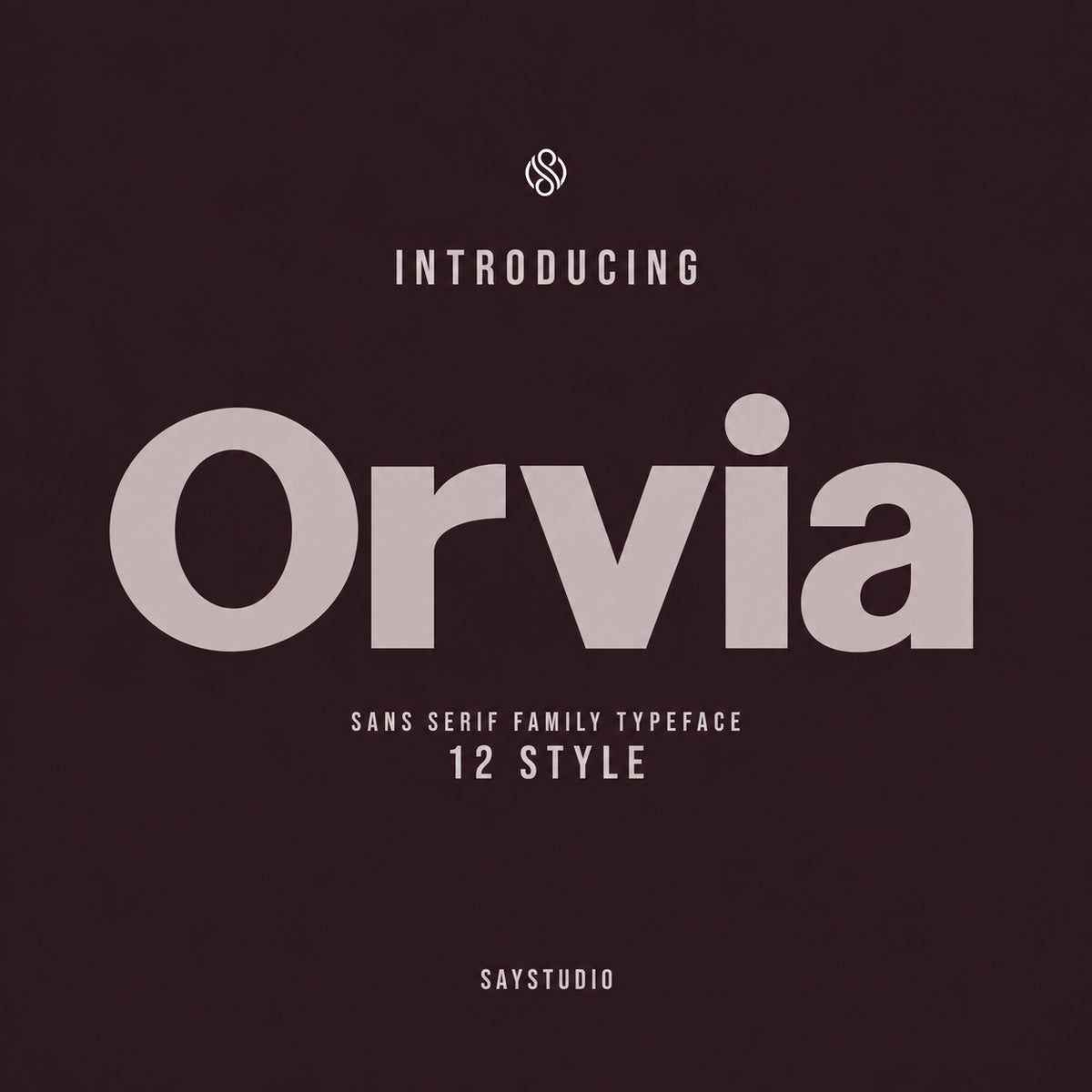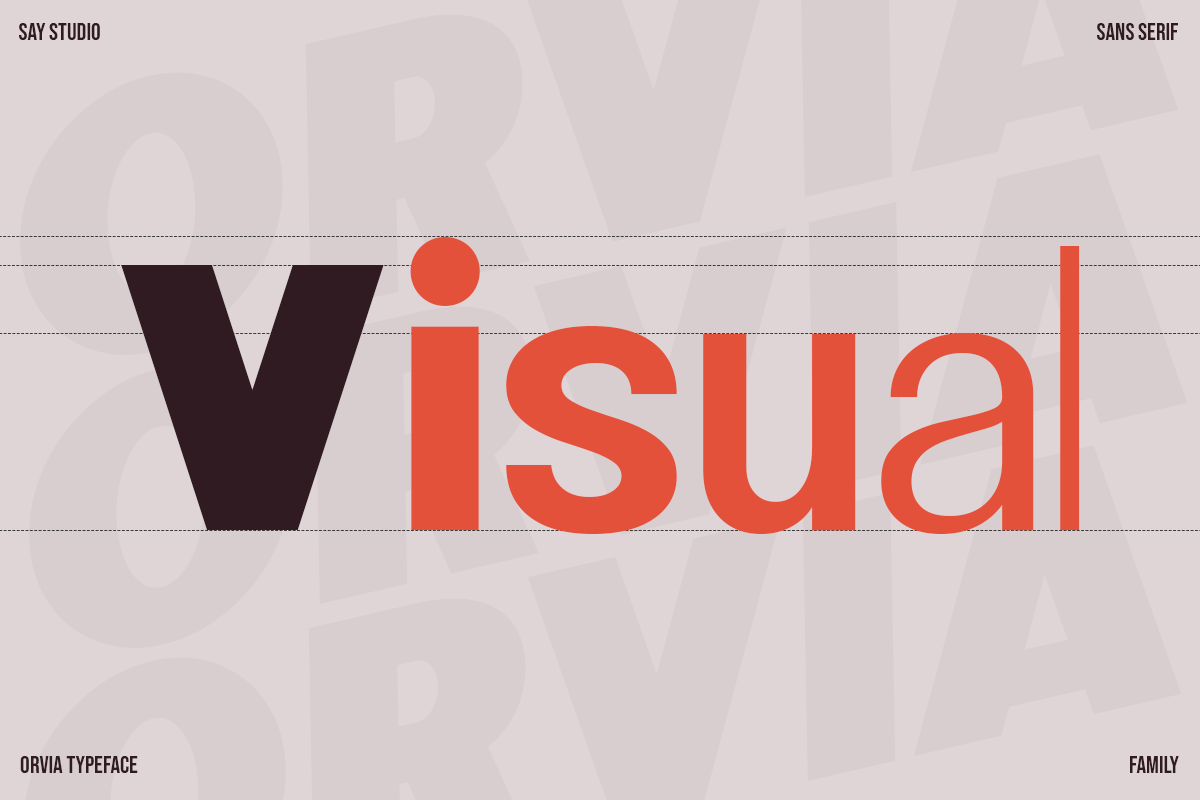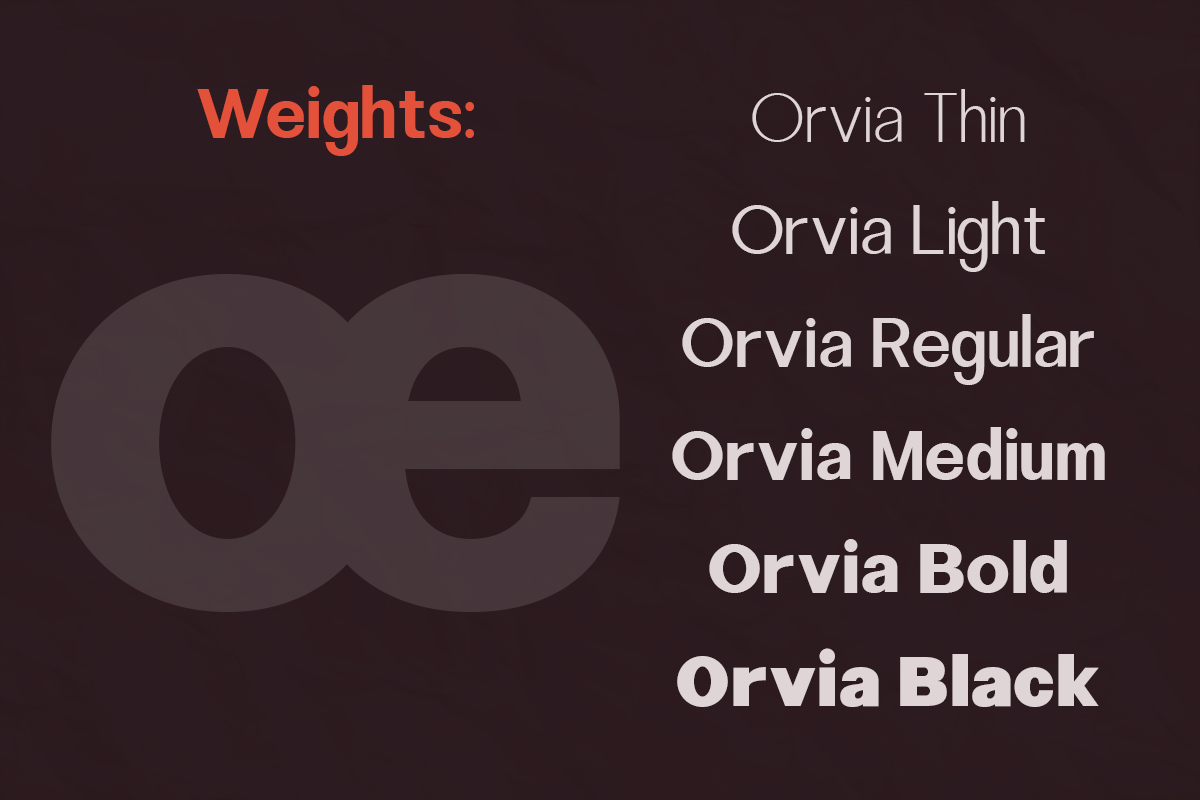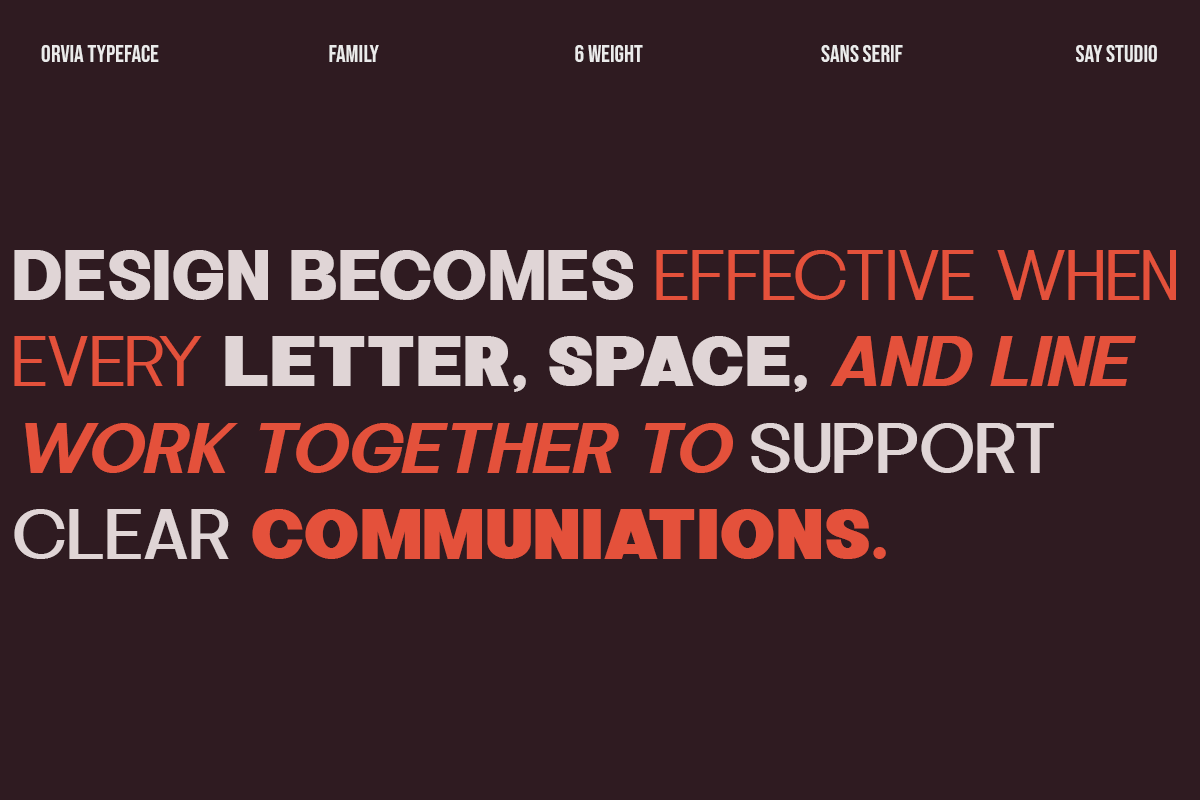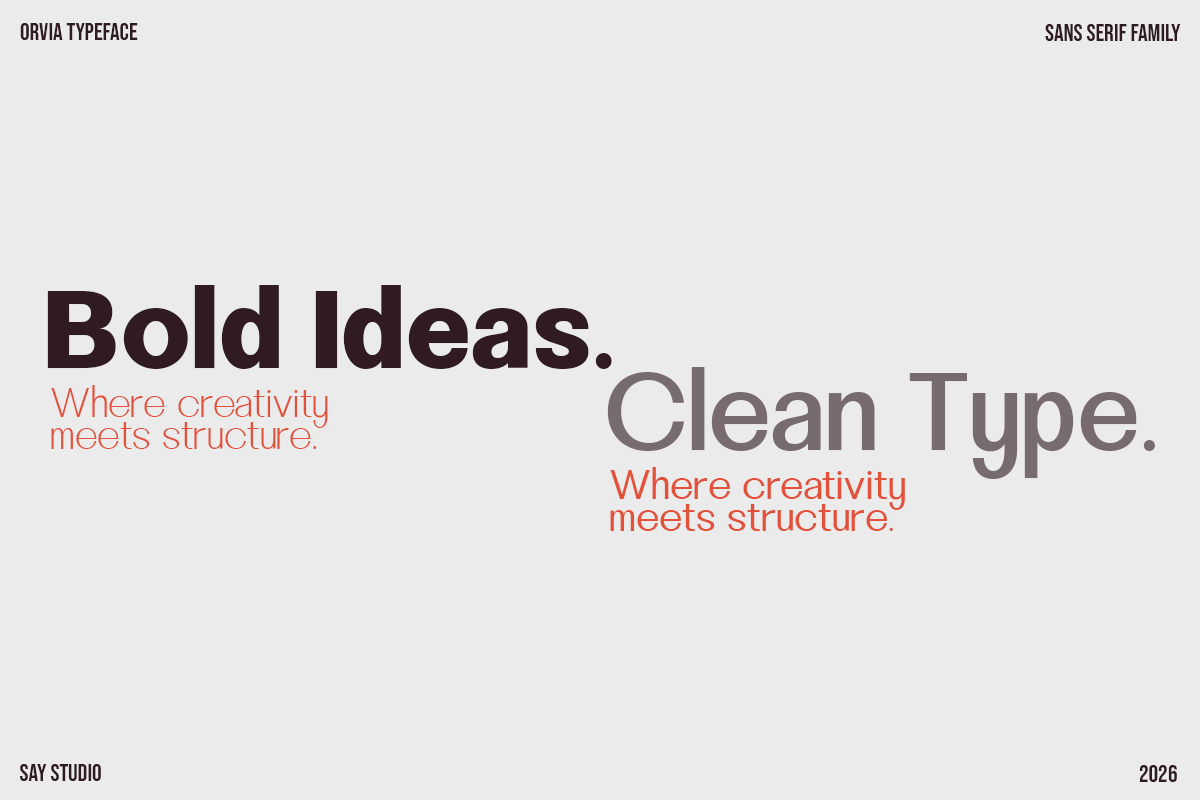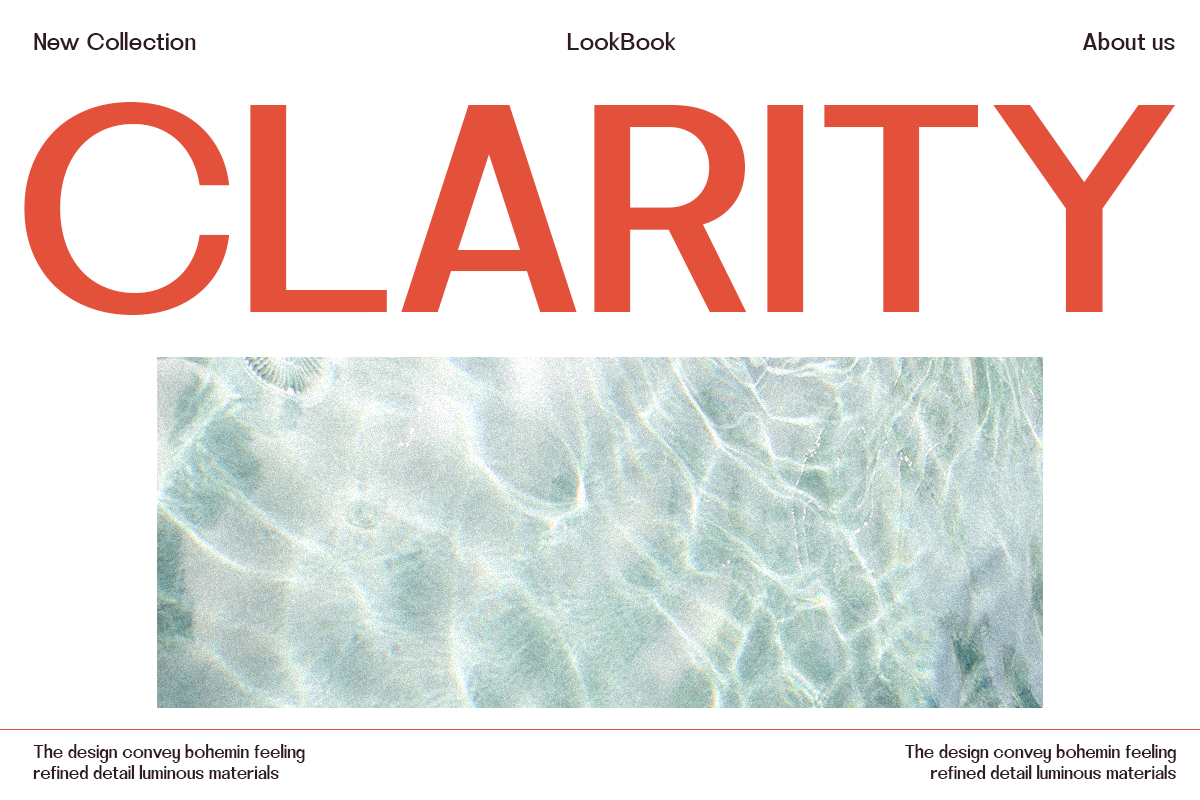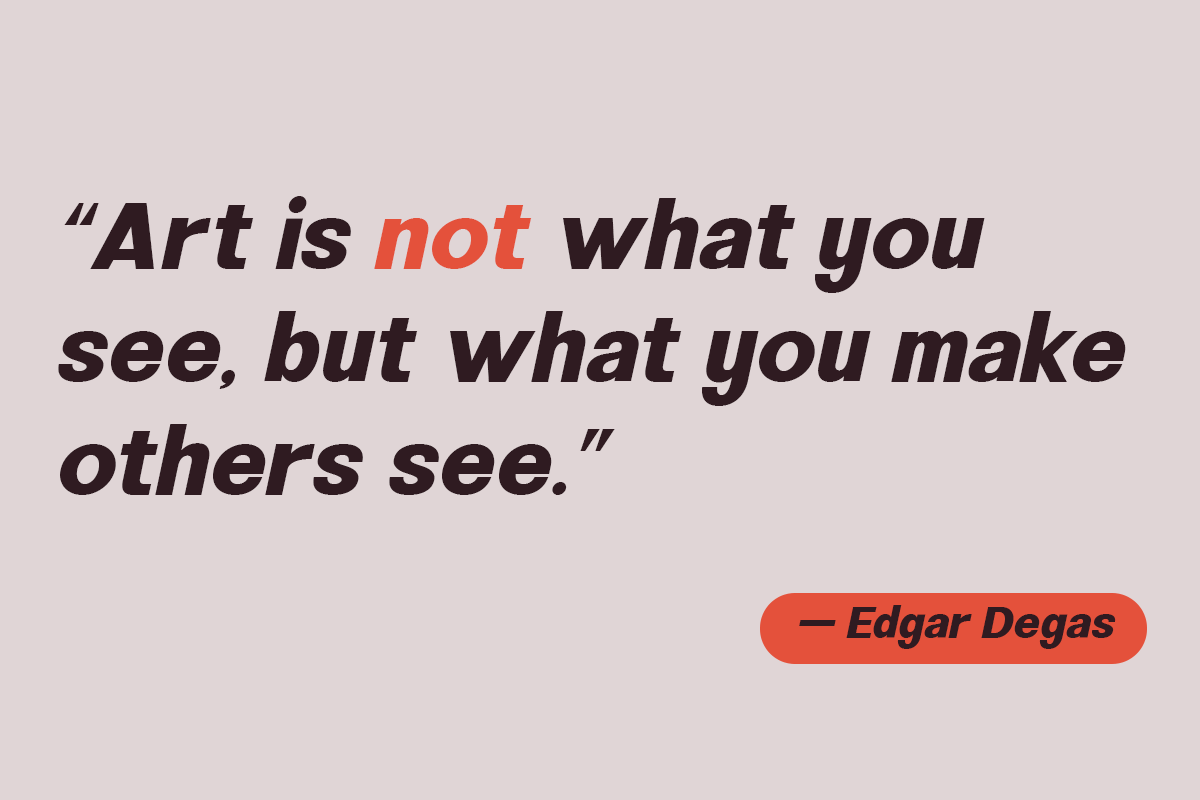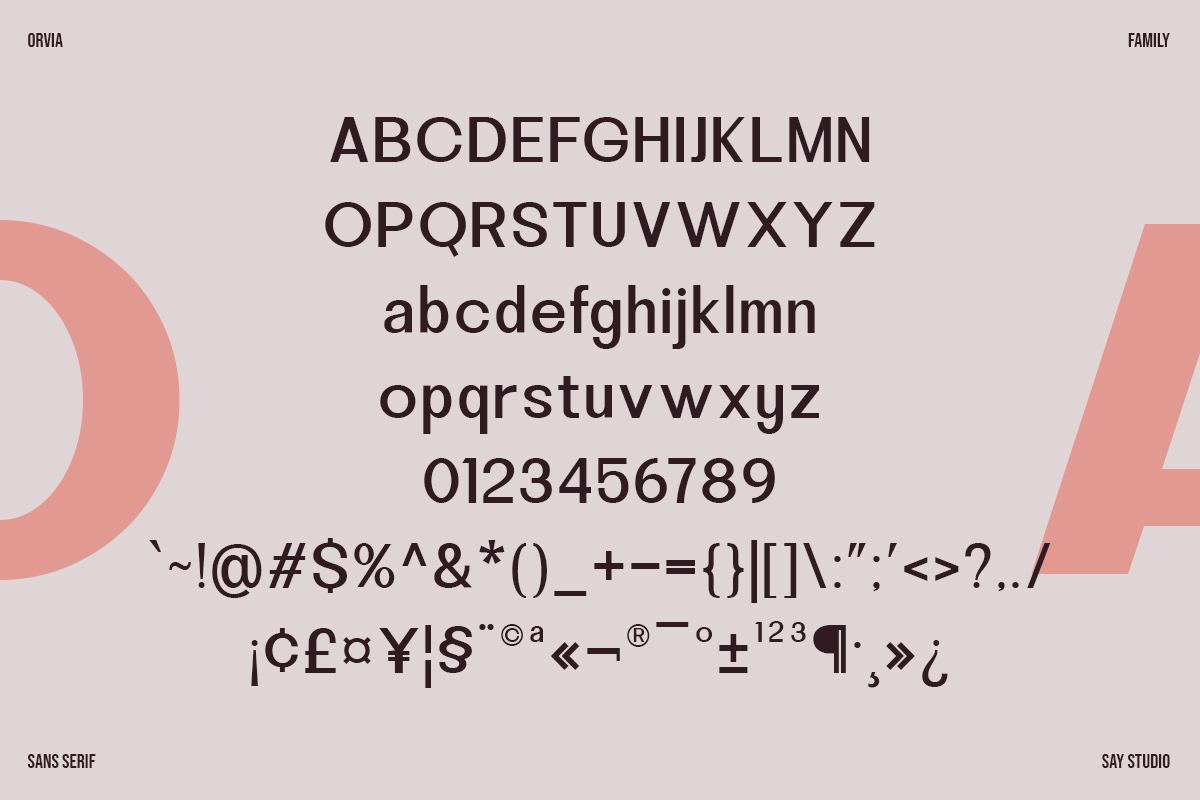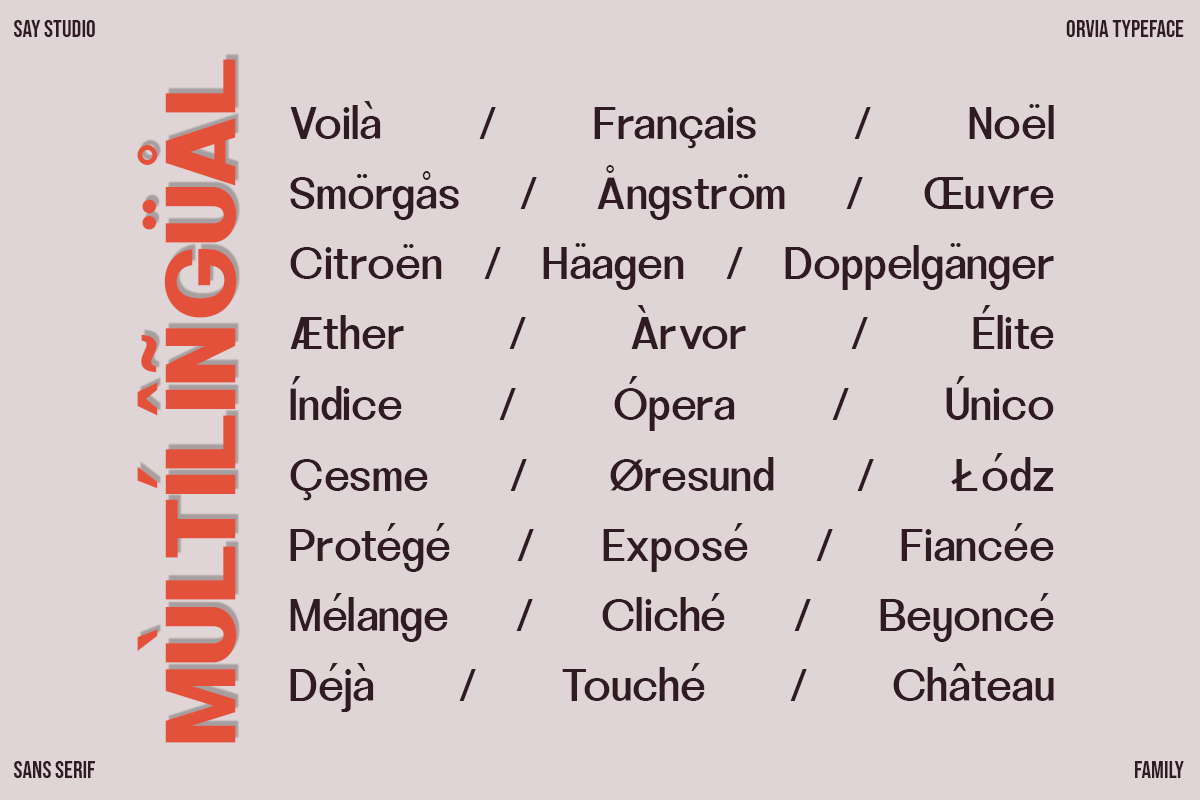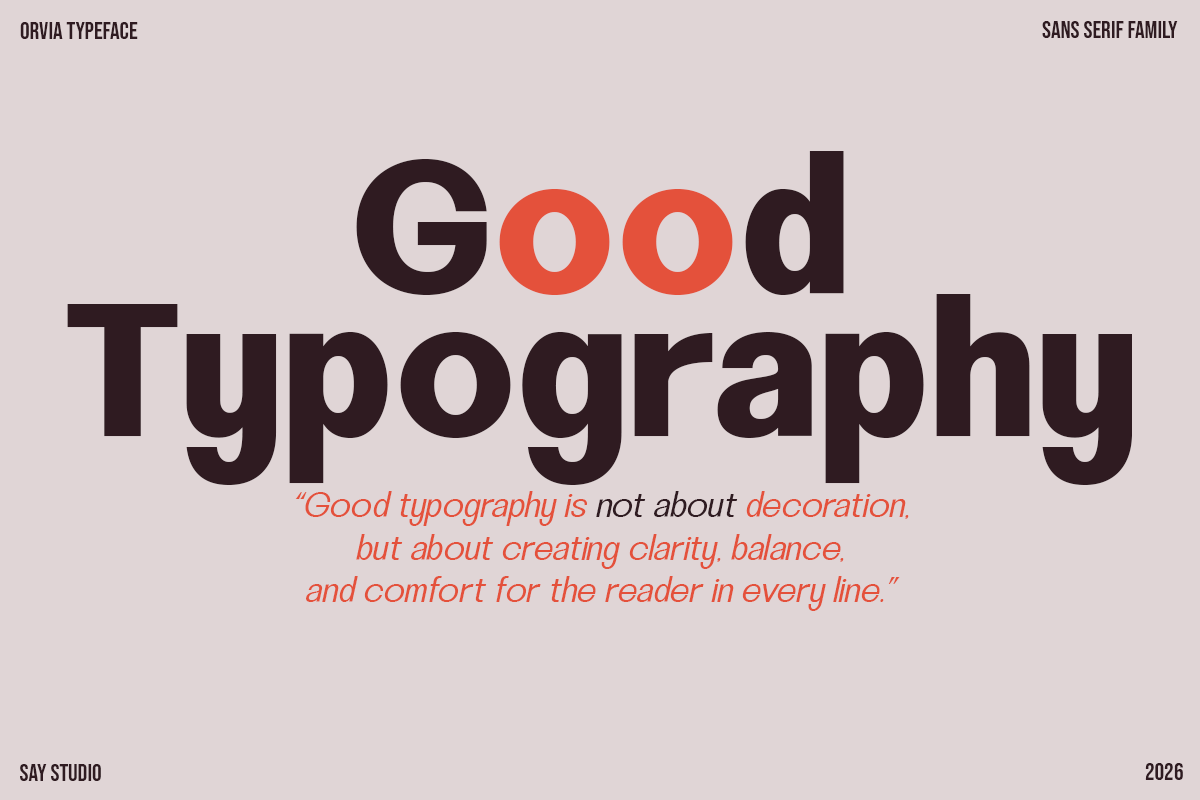
Orvia - Family Modern Sans Serif Font
Orvia is a modern sans serif family typeface designed to deliver clarity, balance, and contemporary elegance across every design project. Built with clean geometry and smooth proportions, Orvia offers a versatile visual voice that feels professional, confident, and timeless, making it ideal for both corporate and creative applications.
With a complete family of 12 styles, Orvia provides flexibility for complex layouts and strong typographic hierarchy. From bold headlines and refined subheadings to clean body text, each style works harmoniously to create cohesive and polished designs. Its neutral yet modern character allows Orvia to adapt seamlessly to branding systems, editorial layouts, user interfaces, and digital products.
Orvia is crafted for designers who value precision and usability. The balanced letterforms, consistent spacing, and excellent readability make it reliable for both print and screen. Whether you’re building a brand identity, designing marketing materials, or creating modern web and app interfaces, Orvia delivers a clear and professional typographic foundation.
Designed to be timeless rather than trendy, Orvia is a dependable sans serif family that supports long-term visual identities while still feeling fresh and contemporary. It’s a font family made to elevate modern design with confidence and clarity.
6 Variable Weights
Number, Symbols, and Punctuation
Orvia is a modern sans serif family consisting of 12 styles across 6 weights, including regular and italic versions with uppercase, lowercase, numbers, symbols, and multilingual character support. The family is provided in OTF, TTF, and WOFF formats.